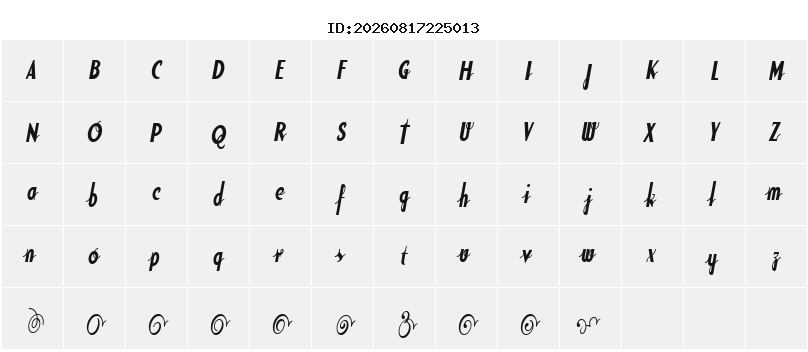
• Font Name: SodaScriptBoldExtras
• Font ID: Altsys Fontographer 3.5 SodaScriptBoldExtras Bold
• Full Font Name: SodaScriptBoldExtras Bold
• Version: Altsys Fontographer 3.5 6/25/95
• PostScript Name: SodaScriptBoldExtras
• Character Count: 245
• Copyright: Copyright (C) 1995, Emigre, Inc., Designed by Zuzana Licko
About SodaScriptBoldExtras.ttf
SodaScriptBoldExtras.ttf is a modern, elegant sans-serif font designed for ultimate readability and visual harmony. Perfect for branding, headlines, web design, and print materials.